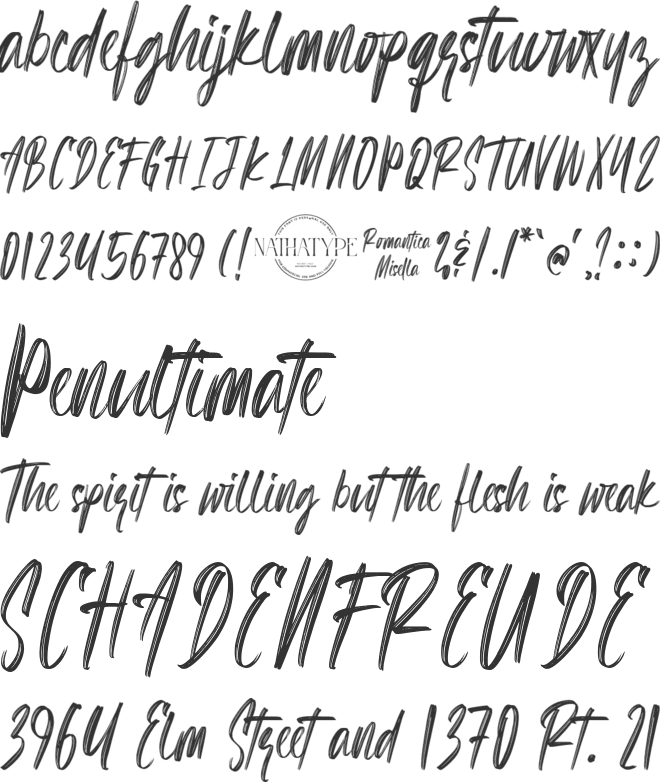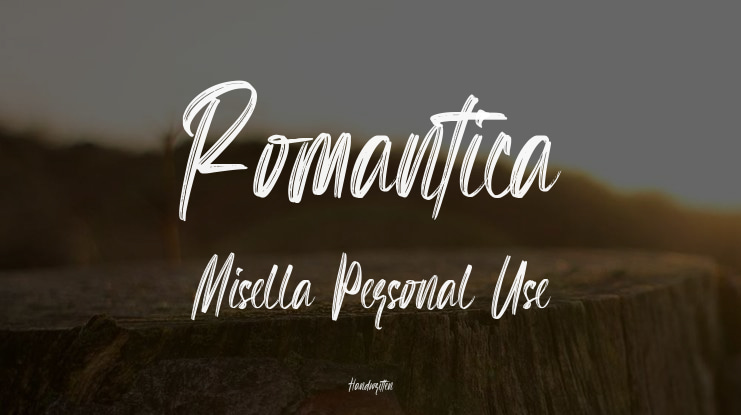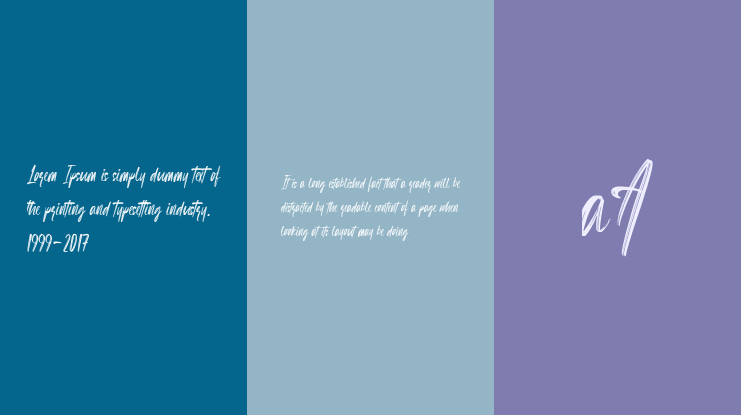
NATHA TYPE
Romantica Misella is a graceful script font that embodies elegance and sophistication. Each letter in Romantica Misella is meticulously crafted to resemble a signature, adding a personal touch to your text. The brush details add depth and texture to the font, giving it a handcrafted feel.